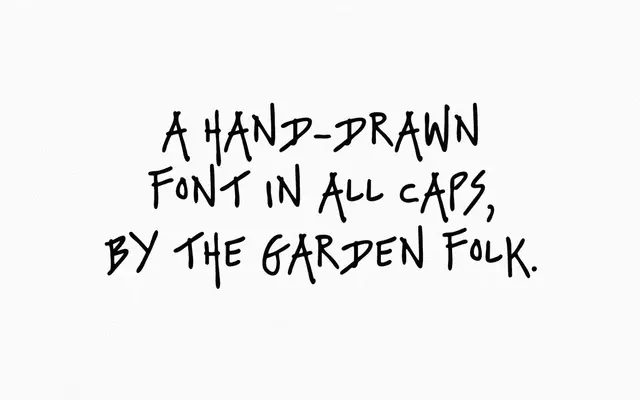
MC Garden Folk
A free decorative script with a hand-drawn folk character, suited to craft, botanical or artisan branding.
A single-weight display typeface with a hand-lettered quality evoking folk art and garden aesthetics. Its informal construction lends itself to labels, packaging and social graphics where a handmade warmth is needed. Available as a free download direct from McLetters.
The name and visual character suggest a hand-drawn, folk-influenced decorative script typical of craft and botanical branding; categorised as display due to its decorative nature and limited body-text utility.